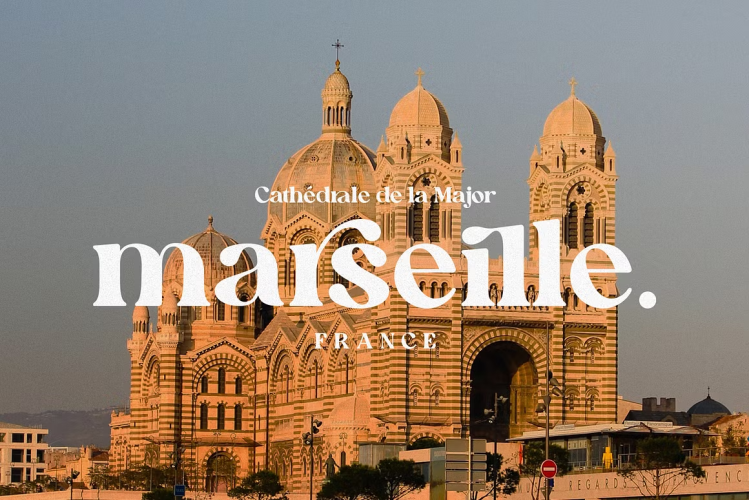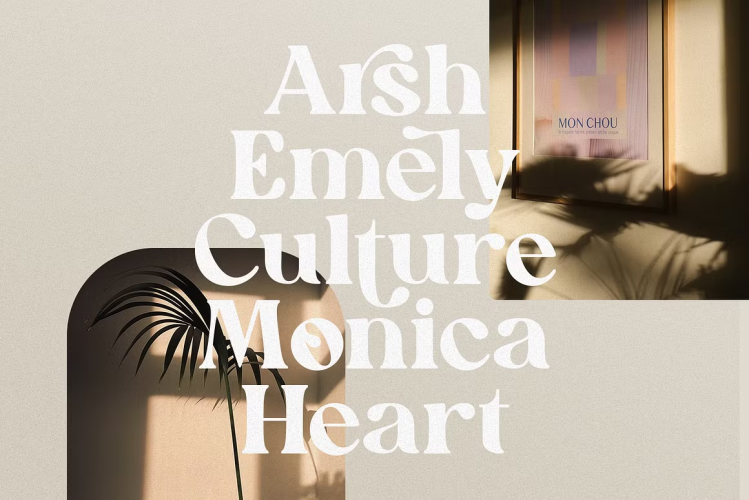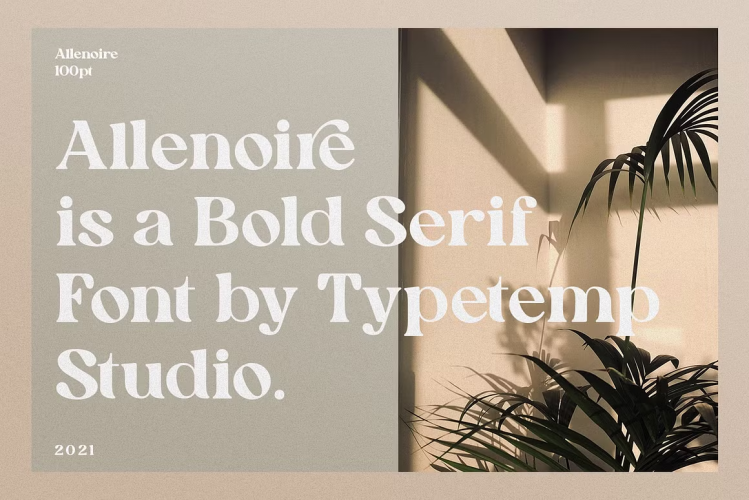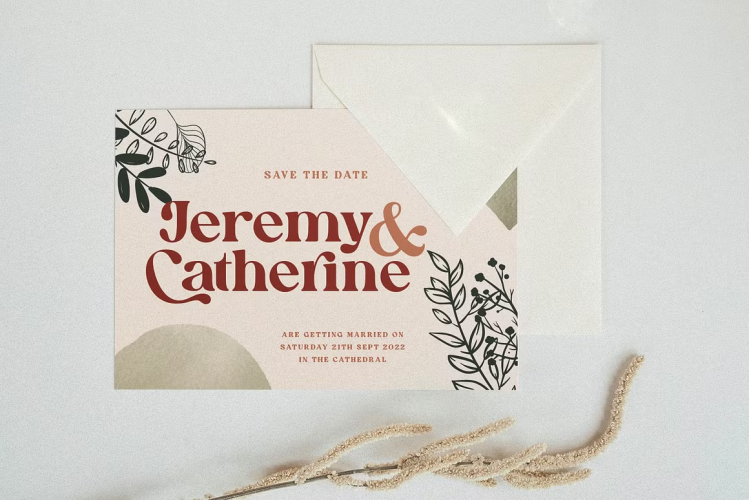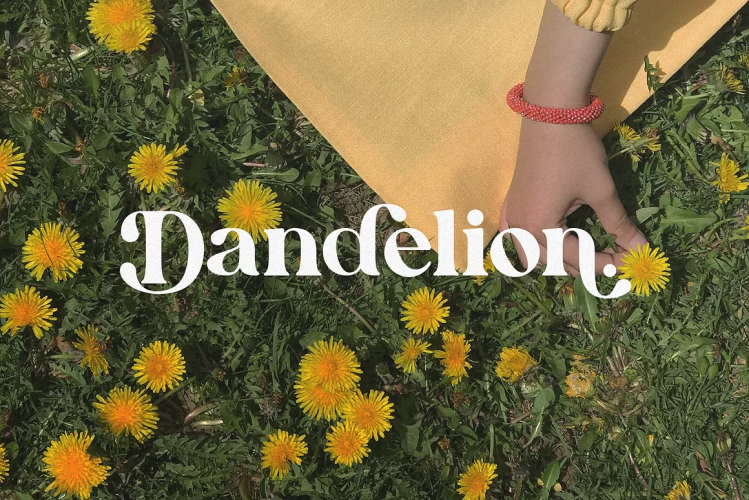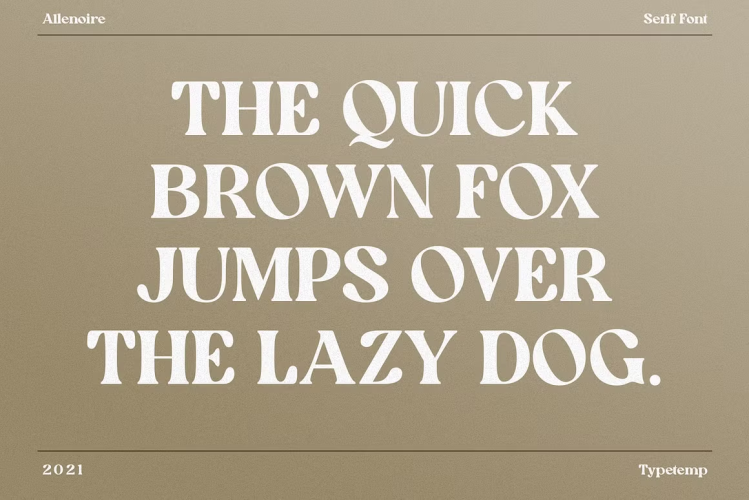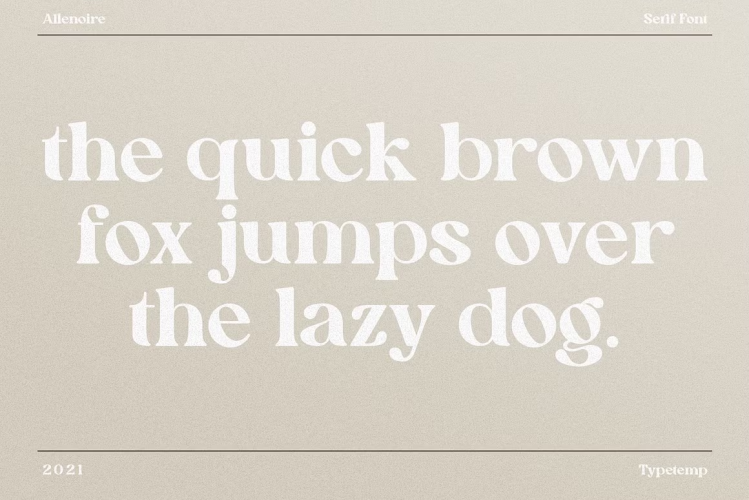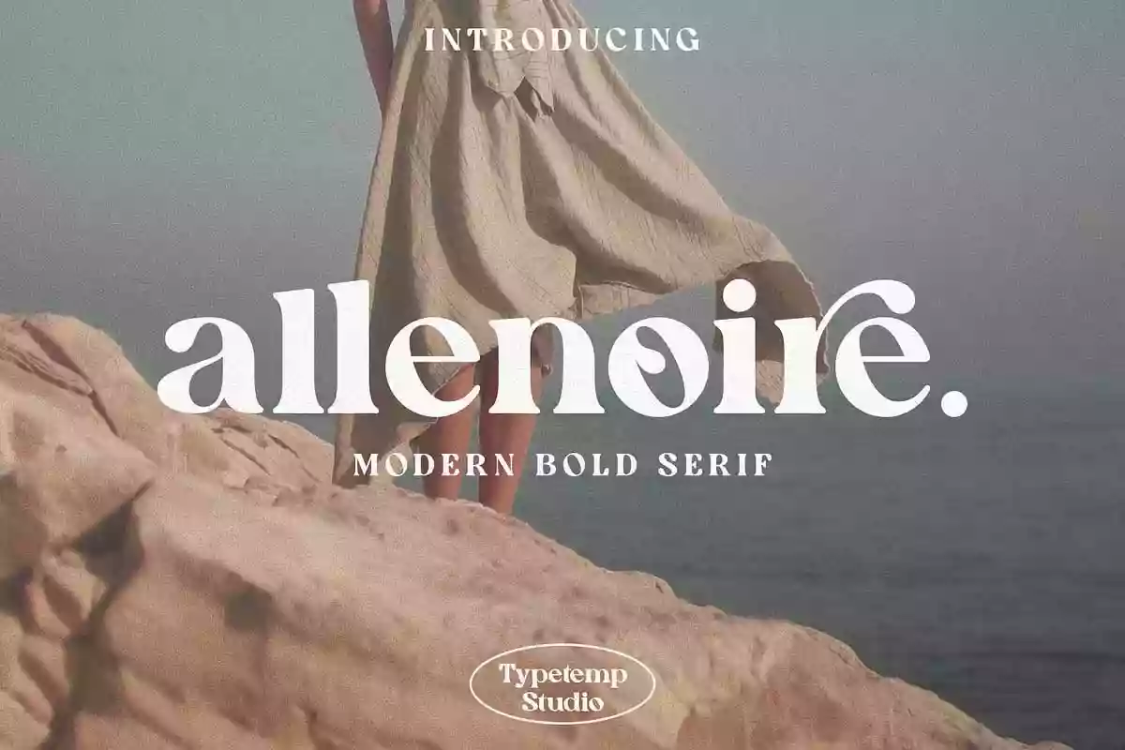
Allenoire Font
Allenoire is a stylish serif font. It has both a modern and retro look. It comes with alternatives and ligatures and helps to create stunning logos, quotes, posts, and blog posts for branding projects, magazine imagery, wedding invitations, and much more.
Allenoire Font is a Serif Fonts font that brings a professional and versatile look to your projects. Allenoire is a stylish serif font.